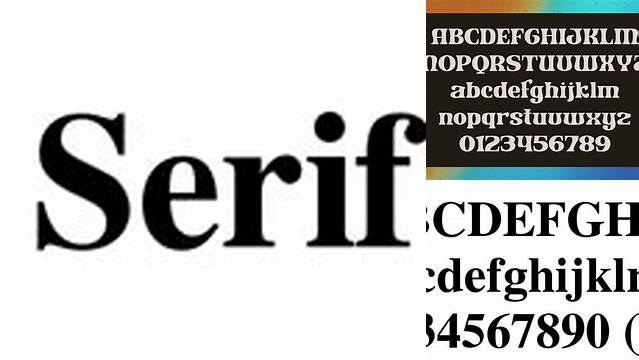
Free Bold Serif Fonts: The Ultimate Guide For Designers
Introduction to Bold Serif Fonts
When we talk about bold serif fonts, guys, we're diving into a world of typography that's both classic and impactful. Serif fonts, with their little feet or strokes at the ends of letters, have a long history, dating back to the early days of printing. But what happens when you make them bold? Well, that's when the magic truly happens! Bold serifs are like the powerhouses of the font world – they command attention, exude confidence, and bring a sense of gravitas to any project. Whether you're designing a killer headline, crafting a brand identity, or laying out a magazine, a free bold serif font can be your best friend. They're not just about making words visible; they're about making a statement. The thickness of the strokes in bold fonts makes them incredibly legible, even from a distance, ensuring your message gets across loud and clear. Think about some of the most iconic brands out there – many of them rely on bold serif fonts to convey trust, authority, and a sense of history. These fonts have a way of connecting the past with the present, giving your designs a timeless quality while still feeling fresh and modern. Plus, the sheer variety within the bold serif family means there's something for every project. From the elegant and refined to the sturdy and robust, you can find a bold serif that perfectly matches the tone and style you're aiming for. And the best part? There are tons of free options out there! So, you don't have to break the bank to access high-quality typography. You just need to know where to look and what to look for. This guide will walk you through everything you need to know about using free bold serif fonts in your designs, so you can make the most of these versatile and impactful typefaces. We'll cover why they're so effective, how to choose the right one for your project, and where to find some amazing freebies. Get ready to elevate your design game with the power of bold serifs!
Why Choose a Bold Serif Font?
So, why should you even consider using a bold serif font in your design projects? Well, there are actually a ton of compelling reasons! First and foremost, bold serif fonts have an incredible ability to grab attention. In a world where we're constantly bombarded with information, your message needs to stand out, and a bold typeface is a fantastic way to do that. The thick strokes and distinctive serifs create a visual presence that's hard to ignore, making them ideal for headlines, titles, and other prominent text elements. Beyond just visibility, bold serifs bring a sense of authority and trustworthiness to your designs. Think about it – many established and respected brands use serif fonts, particularly bold ones, in their logos and branding materials. There's something about the classic, time-tested nature of serifs that conveys stability and reliability. By choosing a bold serif, you're tapping into that same feeling and communicating a sense of confidence to your audience. But it's not just about looking serious; bold serif fonts can also add a touch of elegance and sophistication to your work. Depending on the specific font you choose, you can achieve a range of different moods and styles. Some bold serifs have a more traditional and formal feel, while others are more modern and playful. This versatility makes them a great choice for a wide variety of projects, from invitations and wedding stationery to websites and marketing materials. Another huge advantage of bold serif fonts is their legibility. The bold weight makes the letterforms clear and easy to read, even at smaller sizes or from a distance. This is especially important for body text, where readability is paramount. A well-chosen bold serif can help your content flow smoothly and keep your audience engaged. And let's not forget about the sheer variety of bold serif fonts available. There are countless styles, weights, and variations to choose from, so you're sure to find one that perfectly suits your needs. Whether you're looking for something classic and traditional or something more contemporary and unique, there's a bold serif out there with your name on it. Plus, with so many free options available, you can experiment and try out different styles without spending a dime. So, if you're looking for a font that's both eye-catching and authoritative, elegant and legible, a bold serif is definitely worth considering. It's a classic choice that can elevate your designs and help you communicate your message with impact.
Key Characteristics of Bold Serif Fonts
Okay, so we've talked about why bold serif fonts are awesome, but let's dive a little deeper into what actually makes them tick. What are the key characteristics that define a bold serif font? Well, the first and most obvious feature is, of course, the serifs themselves. These are the small strokes or details that extend from the ends of the main letter strokes. They can take on a variety of shapes and styles, from the classic bracketed serifs you see in fonts like Times New Roman to the sharp, unbracketed serifs found in more modern designs. The serifs are what give these fonts their distinctive look and contribute to their traditional and elegant feel. But it's not just about the serifs; the bold weight is equally important. The thick strokes of a bold font create a strong visual presence, making the letters stand out and grab attention. This boldness also enhances legibility, especially in headlines and titles, where you want your text to be easily readable at a glance. The contrast between the thick and thin strokes is another key element of bold serif fonts. This contrast adds visual interest and helps to define the letterforms, making them more distinct and recognizable. In some bold serifs, the contrast is quite dramatic, while in others, it's more subtle. This variation allows for a wide range of styles and personalities within the bold serif family. The x-height, which is the height of the lowercase letters relative to the uppercase letters, also plays a role in the overall look and feel of a bold serif font. Fonts with a higher x-height tend to appear more legible and modern, while those with a lower x-height can have a more classic and elegant appearance. The overall proportions of the letters are another important characteristic to consider. Some bold serif fonts have a wider, more generous letterform, while others are narrower and more condensed. The proportions can affect the readability and visual impact of the font, so it's important to choose one that suits your specific needs. And let's not forget about the details. The shape and style of the serifs, the curves and angles of the letterforms, and the overall balance and harmony of the design all contribute to the unique personality of a bold serif font. These subtle details are what differentiate one bold serif from another and allow you to find the perfect font for your project. So, when you're choosing a free bold serif font, pay attention to these key characteristics. Consider how the serifs, weight, contrast, x-height, proportions, and details all work together to create a specific look and feel. By understanding these elements, you can make an informed decision and select a font that truly enhances your design.
How to Choose the Right Free Bold Serif Font
Okay, guys, so you're convinced that a bold serif font is the way to go, but how do you actually choose the right one? With so many free options out there, it can feel a bit overwhelming! Don't worry; I'm here to break it down for you. The first thing you need to consider is the purpose of your project. What are you designing? A website? A logo? A poster? The specific font you choose should be appropriate for the medium and the message you're trying to convey. For example, a bold serif font that works well for a headline might not be the best choice for body text. You need to think about legibility and readability, especially at smaller sizes. If you're designing something that needs to be read from a distance, like a billboard or a sign, you'll want to choose a bold serif with clear, distinct letterforms. On the other hand, if you're designing something for print, you might have more flexibility in terms of font choice. The tone and style of your project are also crucial factors to consider. Are you going for something classic and elegant? Or something more modern and edgy? The bold serif font you choose should reflect the overall mood and aesthetic you're trying to create. Some bold serifs have a very traditional feel, while others are more contemporary. Think about the personality you want your design to project and choose a font that aligns with that. The legibility and readability of the font are paramount, as we mentioned earlier. A bold serif font might look beautiful, but if it's difficult to read, it's not going to be effective. Make sure the letterforms are clear and distinct, and that the font works well at different sizes. Test it out in your design to see how it looks in context. Consider the font pairing. The bold serif font you choose will likely be used in conjunction with other fonts, so it's important to think about how they'll work together. A good rule of thumb is to pair a serif font with a sans-serif font. This creates a nice contrast and visual hierarchy. Experiment with different combinations to see what works best for your project. Don't be afraid to try out different options. With so many free bold serif fonts available, there's no reason to settle for the first one you find. Download a few different fonts and see how they look in your design. Play around with the size, weight, and spacing to get a feel for how each font works. And most importantly, trust your instincts. Ultimately, the best way to choose the right bold serif font is to go with what feels right for your project. If you love the way a particular font looks, chances are it's a good fit. So, don't overthink it too much; just have fun and let your creativity guide you. By considering these factors, you can narrow down your choices and find the perfect free bold serif font for your next design project. Remember, the right font can make all the difference in how your message is received, so it's worth taking the time to choose wisely.
Where to Find Free Bold Serif Fonts
Alright, guys, so you're ready to dive into the world of free bold serif fonts, but where do you actually find them? The good news is, the internet is packed with amazing resources for free fonts, and there are plenty of places to discover hidden gems. You just need to know where to look! One of the most popular options is Google Fonts. This is a fantastic resource because all the fonts are free and open-source, meaning you can use them for both personal and commercial projects. Google Fonts has a huge selection of serif fonts, including many bold options, and they're all incredibly easy to download and use. You can even preview the fonts directly on the Google Fonts website to see how they'll look in different sizes and styles. Another great place to find free bold serif fonts is Font Squirrel. This website is dedicated to curating high-quality free fonts that are licensed for commercial use. They have a wide variety of styles and weights, including plenty of bold serifs, and they make it easy to filter your search by specific criteria, like weight, style, and license. Font Squirrel also offers a handy Font Identifier tool that can help you identify a font you've seen elsewhere, which is super useful if you're trying to match a particular look. DaFont is another popular option for free fonts, with a massive library of user-submitted designs. While not all the fonts on DaFont are licensed for commercial use, they do have a clear licensing system, so you can easily find fonts that are safe to use for your projects. They also have a dedicated section for serif fonts, which makes it easy to browse their bold offerings. Creative Market is a marketplace for design assets, and while they primarily sell premium fonts, they also offer a selection of free goods every week, including fonts. It's worth checking their free goods section regularly, as you might just stumble upon a fantastic bold serif font. Many independent type designers and foundries also offer free fonts on their websites. This is a great way to support the design community and discover unique, high-quality typefaces. Look for designers and foundries whose work you admire and check their websites for freebies. MyFonts is a well-known online font retailer, and they also have a section dedicated to free fonts. Their selection is constantly updated, so it's worth checking back regularly to see what's new. When you're searching for free bold serif fonts, it's always a good idea to double-check the license before using them in your projects. Make sure the font is licensed for the specific use you have in mind, whether it's for personal or commercial purposes. By exploring these resources, you'll be well on your way to building a collection of amazing free bold serif fonts that you can use to elevate your designs. Happy font hunting!
Tips for Using Bold Serif Fonts Effectively
So, you've got your collection of free bold serif fonts ready to go – awesome! But how do you actually use them effectively in your designs? It's not just about slapping a bold font on everything and hoping for the best. There are some key tips and tricks that can help you make the most of these powerful typefaces. First and foremost, consider the hierarchy of your design. Bold serif fonts are fantastic for headlines and titles because they grab attention, but they might not always be the best choice for body text. Using a bold font for large blocks of text can actually make it harder to read, so it's often better to reserve bold serifs for the most important elements of your design. When it comes to font pairing, bold serif fonts play well with others, but you need to choose your partners carefully. A classic combination is to pair a bold serif with a sans-serif font. This creates a nice contrast and helps to establish a clear visual hierarchy. For example, you could use a bold serif for your headlines and a clean sans-serif for your body text. Experiment with different font pairings to see what works best for your specific project. White space is your friend when working with bold serif fonts. These fonts have a strong visual presence, so you need to give them room to breathe. Avoid overcrowding your design with too much text or too many elements. Use white space strategically to create a sense of balance and clarity. The size and spacing of your bold serif font can also have a big impact on its effectiveness. Make sure the font is large enough to be easily readable, but not so large that it overwhelms the design. Adjust the letter spacing and line height to optimize legibility. Sometimes, a little bit of tweaking can make a big difference. Don't be afraid to experiment with different styles and weights within the bold serif family. There are countless variations to choose from, and you might be surprised at what you discover. Try using a lighter weight for subheadings or a more condensed style for a specific design element. Contrast is key when working with typography. Use bold serif fonts to create contrast and visual interest in your designs. You can contrast the font weight, size, color, and style to draw attention to specific elements and guide the viewer's eye. Remember, the goal is to create a design that's both visually appealing and easy to read. Finally, don't overuse bold serifs. While they're powerful and attention-grabbing, using them too much can actually diminish their impact. Use them strategically and sparingly to highlight the most important elements of your design. By following these tips, you can use bold serif fonts effectively to create stunning and impactful designs. They're a versatile and timeless choice that can elevate your work to the next level. So, go ahead and experiment, have fun, and let your creativity shine!
Conclusion: The Power of Free Bold Serif Fonts
Guys, we've journeyed through the wonderful world of free bold serif fonts, and hopefully, you're now feeling inspired and ready to put them to use in your own designs! We've explored why bold serifs are such a powerful choice, their key characteristics, how to choose the right one for your project, where to find amazing free options, and tips for using them effectively. The takeaway here is that bold serif fonts are more than just a classic typeface; they're a versatile tool that can help you communicate your message with impact, authority, and elegance. Whether you're designing a logo, a website, a poster, or anything in between, a well-chosen bold serif font can elevate your work and make it stand out from the crowd. Remember, the bold weight of these fonts grabs attention, while the serif details add a touch of tradition and sophistication. They're legible, readable, and come in a wide variety of styles, so you can find one that perfectly matches your project's tone and personality. And the best part? There are so many free options available! You don't have to break the bank to access high-quality typography. With resources like Google Fonts, Font Squirrel, and DaFont, you can build a library of amazing bold serif fonts without spending a dime. But choosing the right font is just the first step. To truly master the art of typography, you need to think about how you're using your bold serifs in your designs. Consider the hierarchy, font pairing, white space, size, and spacing. Experiment with different styles and weights, and don't be afraid to break the rules. The key is to create a design that's both visually appealing and easy to read. And most importantly, have fun with it! Typography is a creative process, and there's always something new to learn. By embracing the power of free bold serif fonts, you can unlock a whole new level of design possibilities. So, go forth and create something amazing! Let those bold serifs make a statement and help you communicate your message with confidence and style. The world of typography is waiting, and your designs are about to get a whole lot bolder!